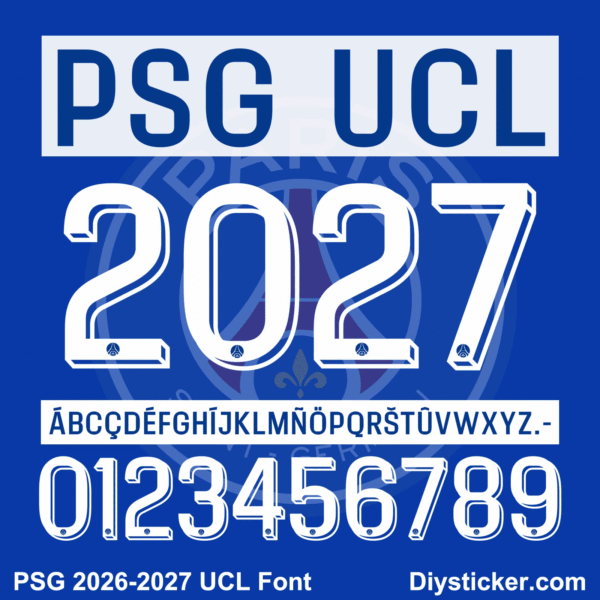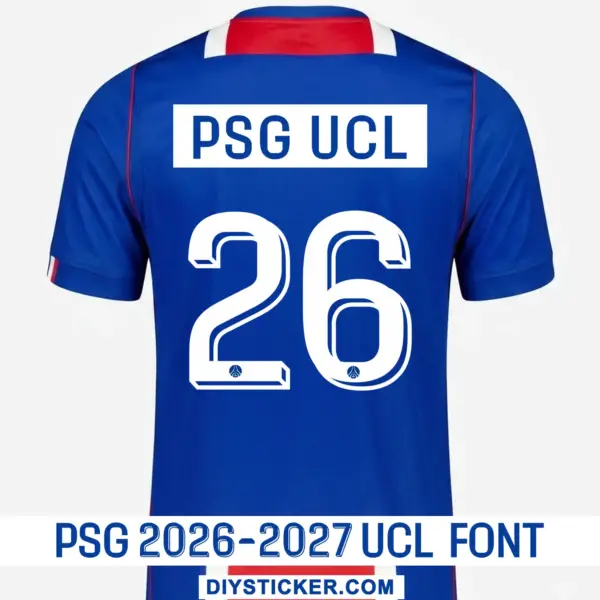
Paris Saint-Germain PSG 2026-2027 UCL Font Download
Download the official European look! This digital file pack features the premium PSG 2026-2027 UCL Font and Numbers designed specifically for Paris Saint-Germain’s UEFA Champions League and cup tournaments. Perfect for custom jersey customization, heat press transfers, and sports graphic layouts.
Complete uppercase kit alphabet, squad numbers, and integrated club crest details.
Elevate Your Custom Kits with the PSG 2026-2027 UCL Font
Bring the look of the Parc des Princes to your design desk! This premium digital font package gives you immediate access to the PSG 2026-2027 UCL font style worn by Paris Saint-Germain during their elite European championship campaigns. Featuring a striking block-shadow typography layout with a distinct inline accent groove and custom club crest nesting inside the base of each number, this design is essential for authentic kit restorations and custom team gear manufacturing.
Comprehensive Character Set Package
Your instant download contains a comprehensive set of alphanumeric assets built exactly to kit specifications:
A-Z Upper Case Lettering: Configured with correct tracking and kerning profiles to match official nameplates.
0-9 Dimensional Numbers: Crisp 3D-effect numbers detailed with precise line cutouts.
Special Diacritics & Punctuation: Complete with European linguistic accents (
Á,Ç,Ñ,Ö,Š,Û) to render international star player names authentically.
What tournaments is this specific PSG font used for?
This font style is specifically worn during European competitions such as the UEFA Champions League (UCL) and domestic cup tournaments where clubs use custom typography separate from league standards.